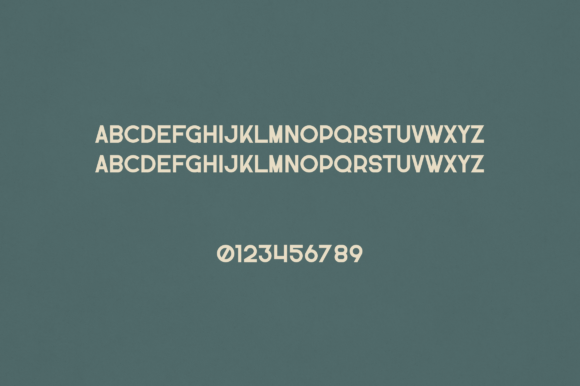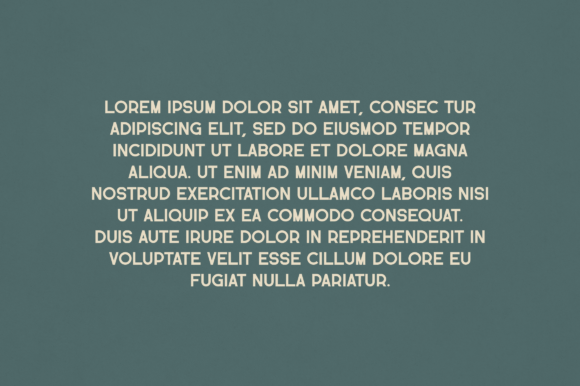
Gwyneth Font: Elevate Your Design with Elegance and Versatility
In the world of typography, a font can make or break a design. It’s the foundation upon which your creative vision is built, and choosing the right one can be a daunting task. However, if you’re looking for a font that embodies elegance, versatility, and uniqueness, look no further than Gwyneth. This stunning sans serif font is designed to transform your typography into a masterpiece that will leave a lasting impression.
The Gwyneth Advantage: Unparalleled Elegance and Versatility
Gwyneth is more than just a font – it’s an experience. Its elegant and refined design makes it perfect for a wide range of applications, from logos and branding to headlines and plain text. Whether you’re working on a branding project, home-ware design, product packaging, or magazine headers, Gwyneth is the ideal choice. Its versatility knows no bounds, and it can be used as a stylish text overlay to any background image, adding a touch of sophistication and glamour.
Why Designers and Crafters Love Gwyneth
So, what sets Gwyneth apart from other fonts? Here are just a few reasons why designers and crafters alike have fallen in love with this incredible font:
- Elegant and Refined Design: Gwyneth boasts a sleek and modern sans serif design that’s both elegant and refined. Its clean lines and subtle curves make it perfect for creating sophisticated typography.
- Versatility Unleashed: From logos and branding to headlines and plain text, Gwyneth can be used in a variety of contexts. Its versatility makes it an excellent addition to any designer’s toolkit.
- Unique and Memorable: With Gwyneth, you can create typography that truly stands out from the crowd. Its unique design ensures that your message will be remembered long after the initial impression.
- Easy to Read: Despite its elegant design, Gwyneth remains highly legible, making it perfect for use in a variety of applications, from body text to headlines.
Endless Design Possibilities with Gwyneth
With Gwyneth, the design possibilities are endless. Here are just a few ideas to get you started:
- Branding and Logos: Create a lasting impression with a custom logo or branding project that showcases your unique identity.
- Home-Ware Designs: Add a touch of elegance to your home-ware designs, from product packaging to labels and tags.
- Magazine Headers and Titles: Make your magazine or publication stand out with eye-catching headers and titles that showcase Gwyneth’s unique design.
- Social Media Graphics: Elevate your social media presence with stylish text overlays that add a touch of sophistication to any background image.
In conclusion, Gwyneth is a game-changing font that offers a unique blend of elegance, versatility, and sophistication. Whether you’re a designer, crafter, or simply someone looking to elevate their typography, Gwyneth is an excellent choice. With its wide range of applications, ease of use, and stunning design, Gwyneth is sure to become a favorite in your design toolkit. So why wait? Discover the power of Gwyneth today and transform your typography into a masterpiece that will leave a lasting impression.